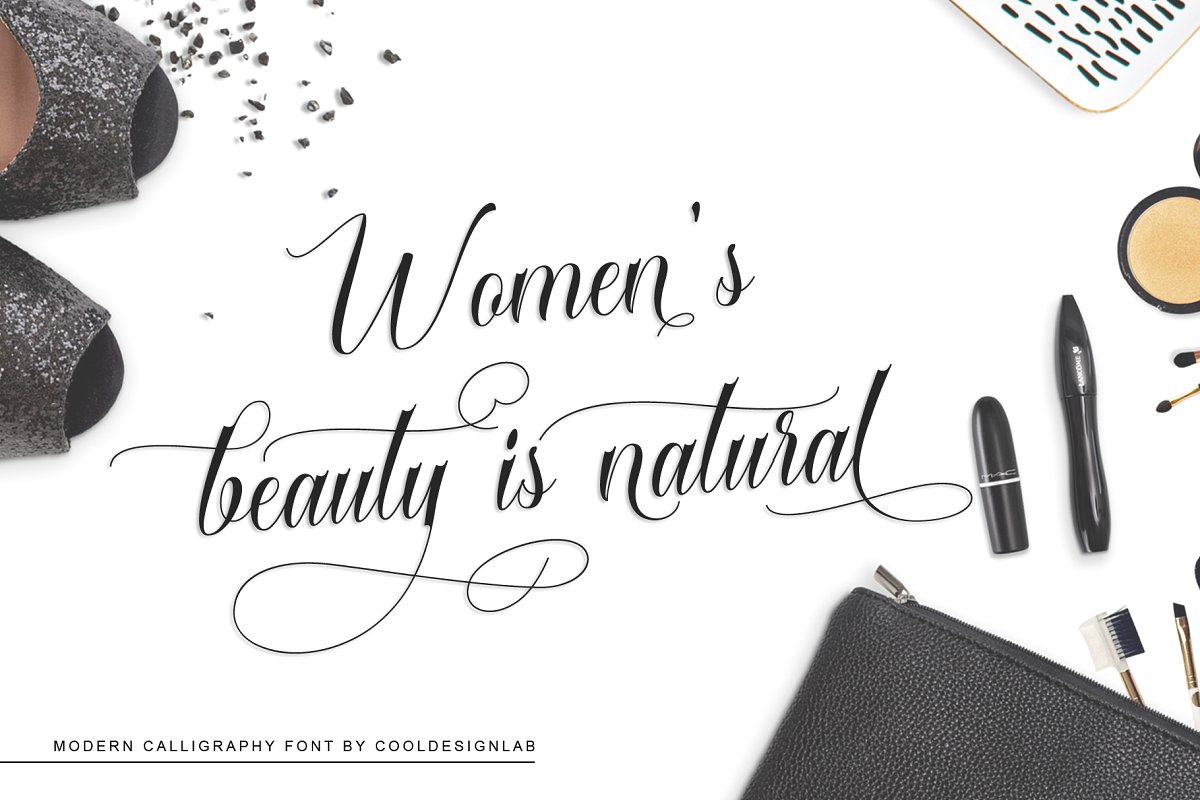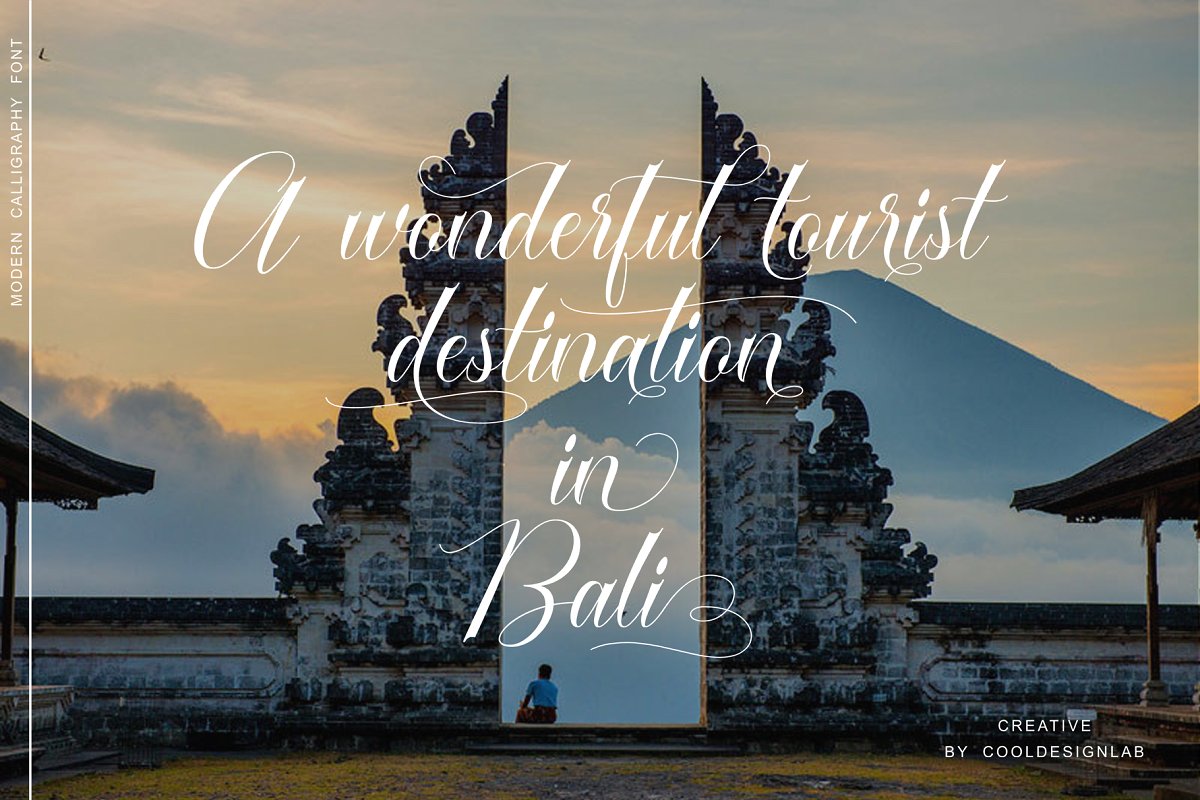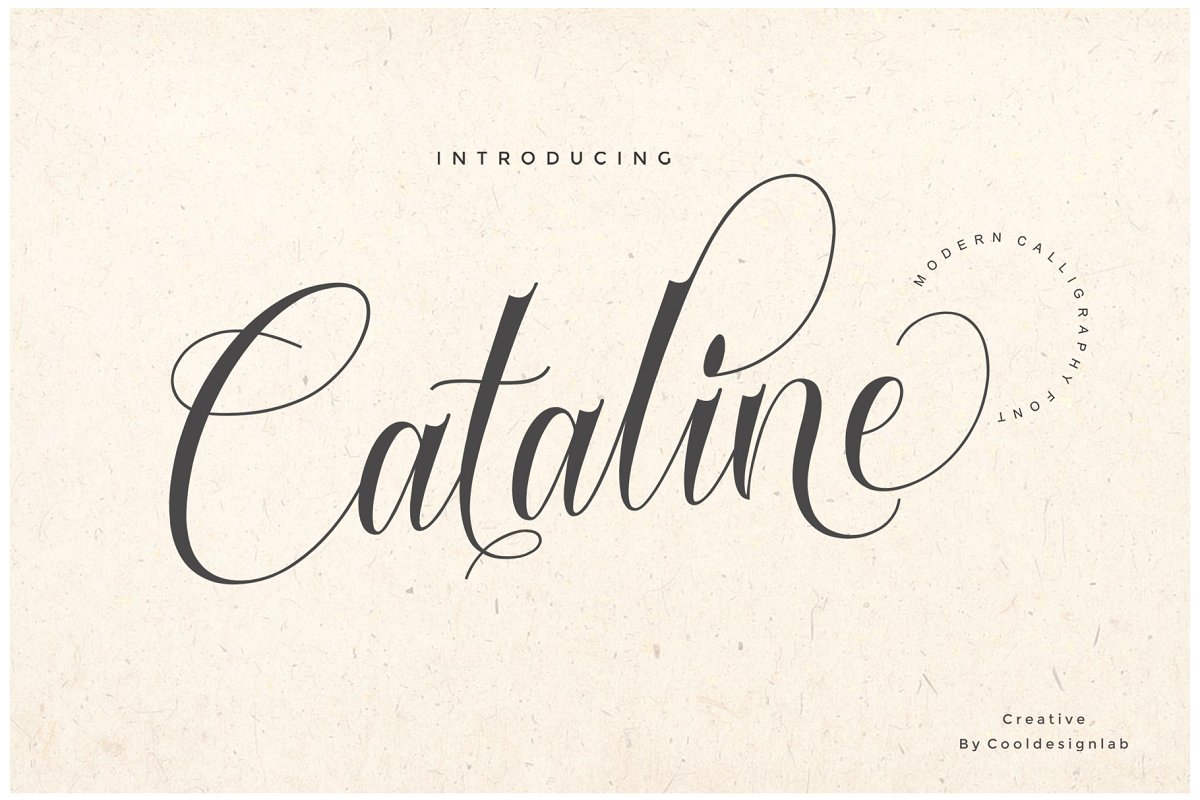
Cataline Script Font
Cataline Script Font – Font Demo
Hello world..!! A beautiful script font is a stylish calligraphy script with touch of love. This font that features a varying baseline, smooth line, modern and with a depth love. Introducing Cataline font! Cataline Script Font a new fresh & modern script with a handmade calligraphy style, decorative characters and a dancing baseline! So beautiful on invitation like greeting cards, branding materials, business cards, quotes, posters, and more!